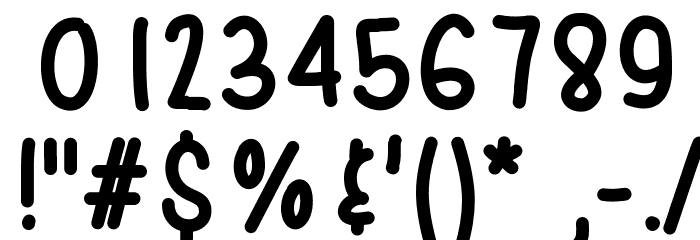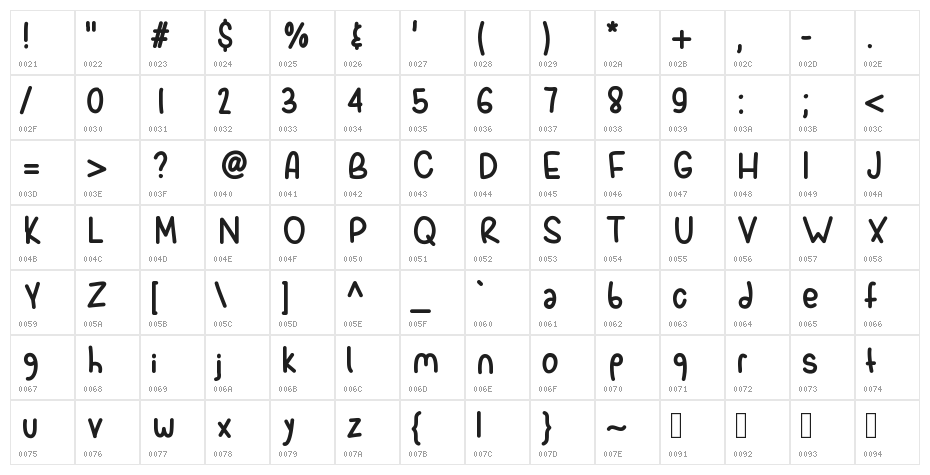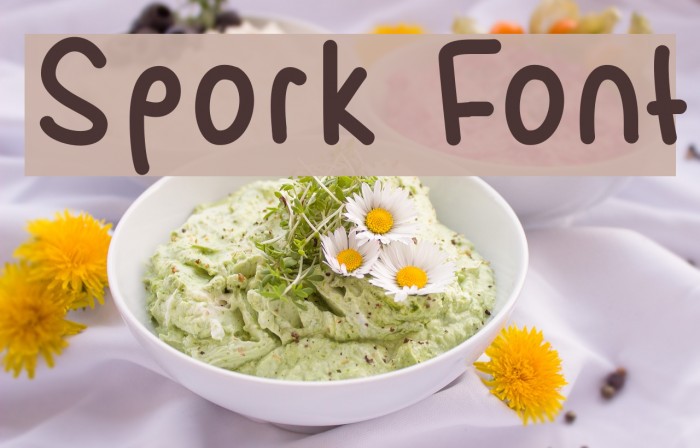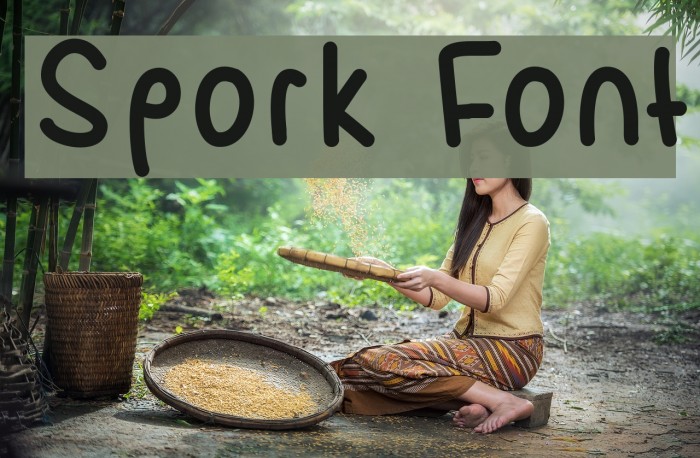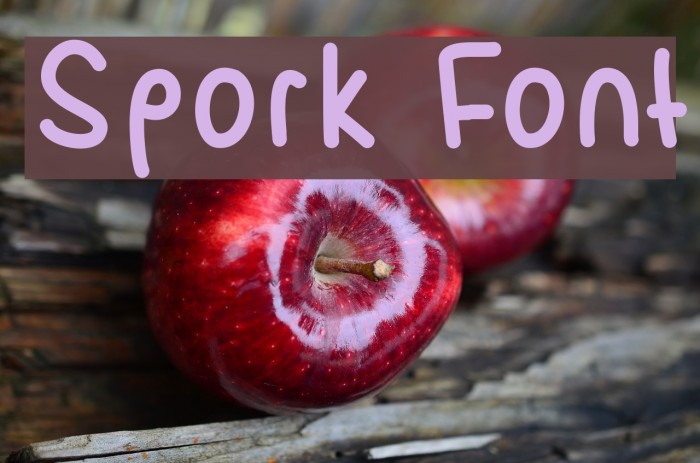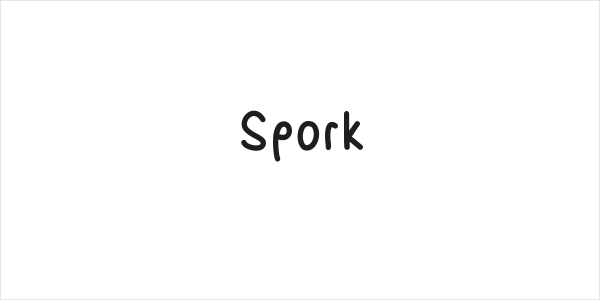
Spork Font
Spork Description
This font features a playful, handwritten style with a casual and friendly appearance. The characters are rounded and slightly irregular, giving them a whimsical and approachable feel. The uppercase and lowercase letters maintain a consistent style, with a slight tilt that adds to the informal aesthetic. The numbers and special characters follow the same playful design, making the font versatile for various creative projects. The strokes are uniform in thickness, contributing to a cohesive look across all characters.
| Proposed Projects | Ideal for children's books, greeting cards, playful branding, and informal invitations. |